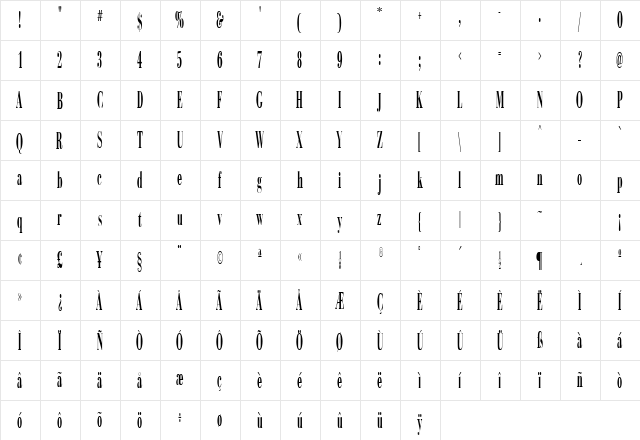
Camanetti Regular
Design Context for Camanetti Typeface
Camanetti takes a measured approach to typography — its balanced proportions and neutral character make it a reliable workhorse for both digital and print work.